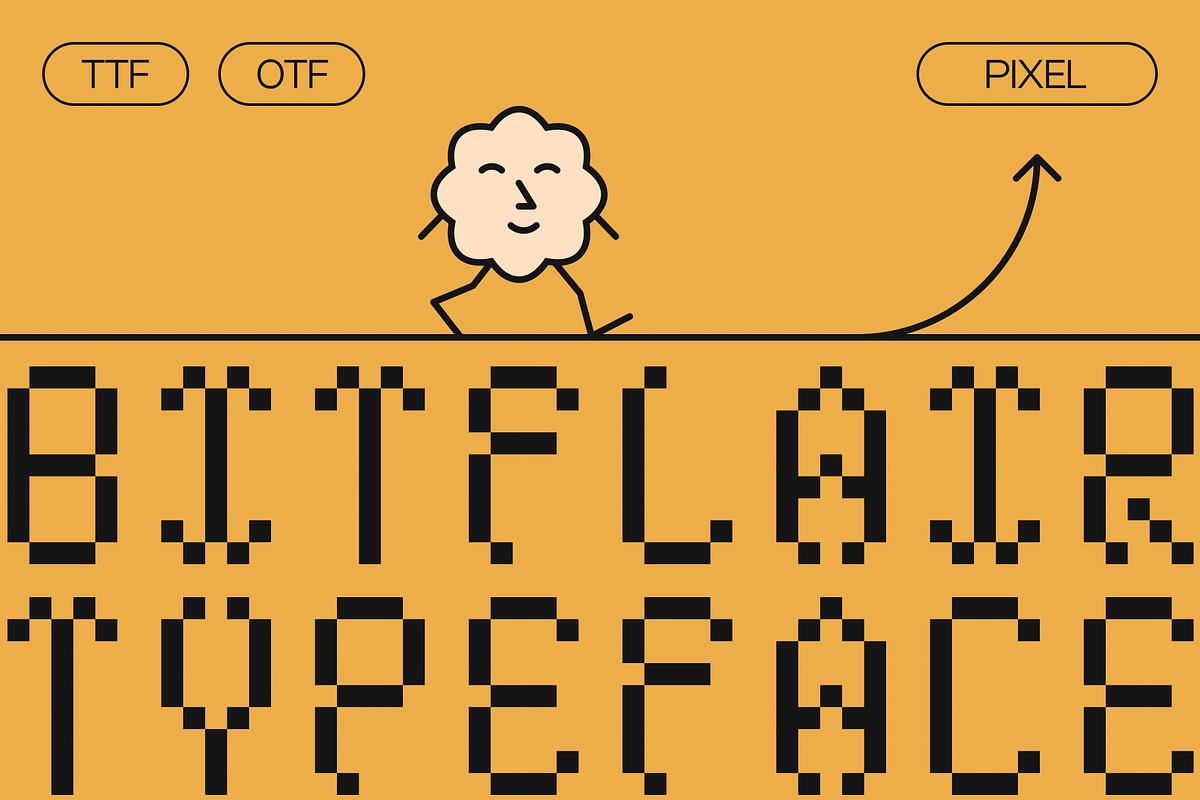
BITFLAIR Typeface Pixel Font Free Download
BITFLAIR Typeface Pixel Font Free Download is a retro-style pixel font inspired by classic 8-bit and 16-bit video games. With its blocky, grid-based structure and nostalgic charm, this typeface is perfect for arcade-inspired graphics, gaming logos, digital art, app design, and tech-themed branding. It captures the essence of old-school gaming while staying crisp and clean for modern projects.
Designed for clarity at small sizes and pixel-perfect precision, BITFLAIR Typeface Pixel Font Free Download works beautifully in screen-based applications. Whether you're crafting UI elements, coding projects, or promotional materials for retro content, this font delivers authenticity and style.